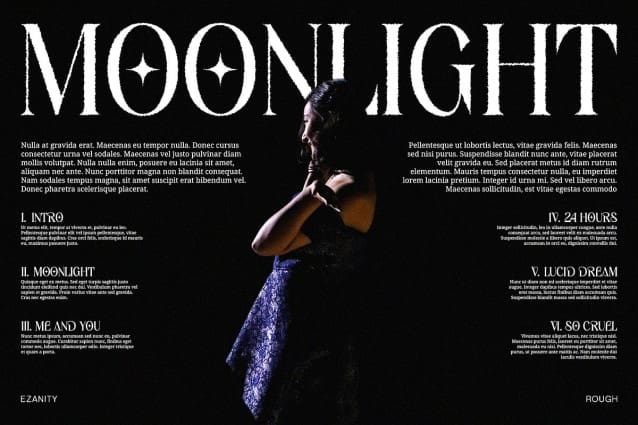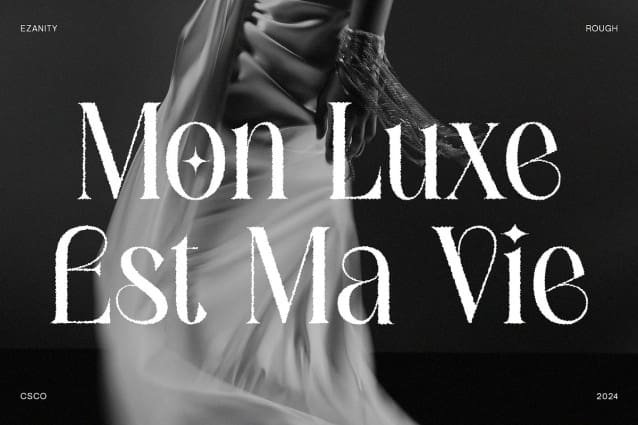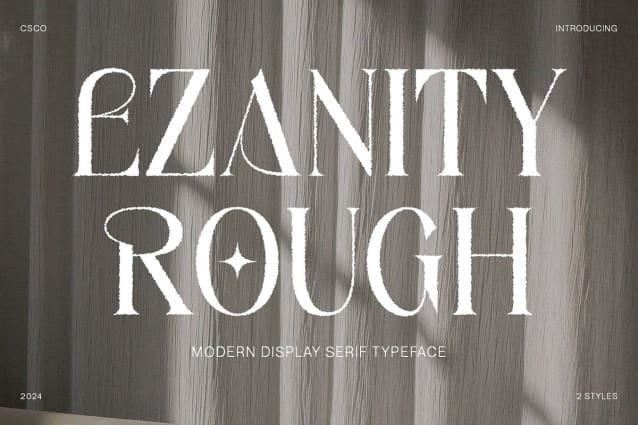
Ezanity Rough Font
Ezanity Rough Font is a modern serif font with an Art Nouveau style, exuding elegance with its curved lines and artistic organic details. This font captures the timeless beauty of Art Nouveau, creating a refined and sophisticated look.
Unique Blend of Sophistication and Authenticity Featuring a rough effect, Ezanity Rough adds texture and character to its elegant design. This unique blend of sophistication and authenticity makes it stand out in various design contexts, providing a distinctive visual appeal.
Ideal for Luxurious and Artistic Impressions Ezanity Rough is ideal for projects that aim to convey a luxurious yet artistic impression. Its elegant curves and rough texture make it perfect for luxury branding, editorial design, and artwork, adding a touch of class and creativity.
Versatile Usage for Various Design Applications This font is versatile and suitable for a range of applications, from high-end branding to creative editorial layouts. Its blend of elegance and texture enhances the visual impact and emotional connection in design projects.